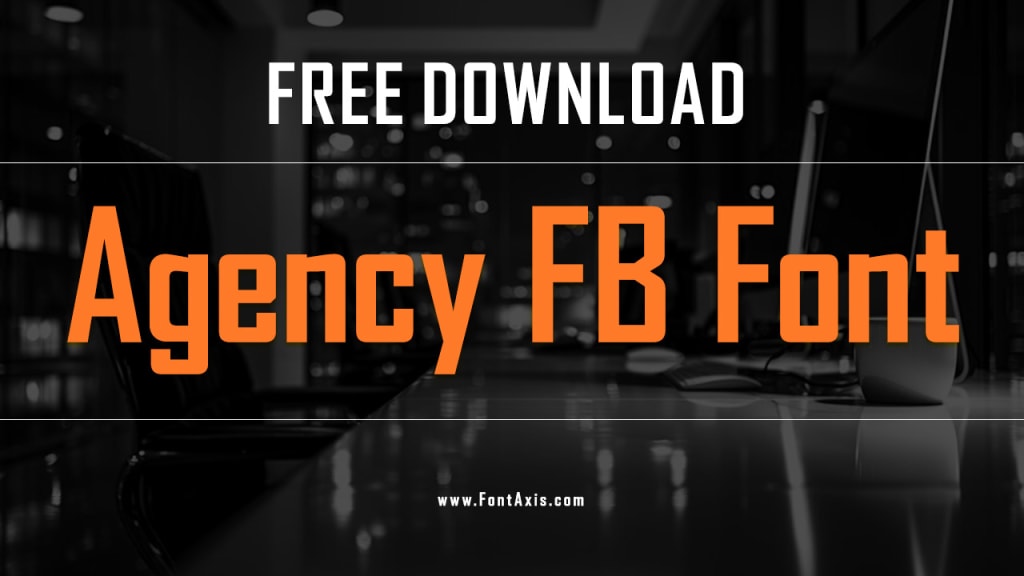
Agency FB Font: A Comprehensive Overview
Agency FB Font
Typography plays a critical role in design, shaping the perception and usability of content. One such font that has stood the test of time is Agency FB.
Known for its modern yet professional appearance, Agency FB has become a favorite among graphic designers, content creators, and branding experts. This article delves into the origins, characteristics, and applications of the Agency FB font, offering insights into why it’s a valuable asset in the typographic world.
Origins of Agency FB Font
Agency FB is a sans-serif typeface designed by Morris Fuller Benton and originally created in the early 20th century. Over time, it was updated and released in its current digital format by Font Bureau.
The font’s design reflects the Art Deco era, characterized by geometric shapes, clean lines, and a futuristic aesthetic. This combination of historical significance and timeless design has contributed to its enduring popularity.
Key Features of Agency FB Font
Geometric Shapes: Agency FB relies heavily on geometric forms, giving it a structured and organized appearance.
Condensed Structure: Its narrow width allows for efficient use of space, making it ideal for headlines and captions.
Clean Lines: The font’s clean and minimalistic design ensures readability even at smaller sizes.
Versatility: With its modern and professional look, Agency FB is suitable for various applications, from corporate branding to creative projects.
Applications of Agency FB Font
Graphic Design: Agency FB is commonly used in posters, logos, and digital media due to its bold and eye-catching appearance.
Corporate Branding: Its professional design makes it a great choice for business presentations and marketing materials.
Web Design: The font’s readability and clean look work well for website headers and navigation menus.
Editorial Design: Magazines and newspapers often use Agency FB for headlines and subheadings to grab readers’ attention.
Why Choose Agency FB Font?
Timeless Appeal: The Art Deco-inspired design ensures that Agency FB remains stylish and relevant.
Professional and Modern: Its clean lines and geometric structure lend a polished look to any project.
Highly Readable: Despite its condensed form, the font maintains excellent readability, making it suitable for both print and digital formats.
Conclusion
Agency FB is a testament to the enduring power of well-crafted typography. Its unique blend of historical charm and modern utility has secured its place in the design world.
Whether you’re working on a creative project, corporate branding, or editorial content, Agency FB offers a versatile and professional solution. By understanding its features and applications, you can make the most of this iconic typeface in your design endeavors.
FAQs about Agency FB Font
What is the origin of the Agency FB font?
Agency FB was originally designed by Morris Fuller Benton and later updated and released by Font Bureau.
What design style does Agency FB reflect?
The font reflects the Art Deco style, characterized by geometric shapes and clean lines.
Is Agency FB suitable for digital design?
Yes, its clean and professional design makes it ideal for digital applications like websites and social media graphics.
Can Agency FB be used for body text?
While it’s primarily designed for headlines and display purposes, it can be used for short blocks of body text in certain contexts.